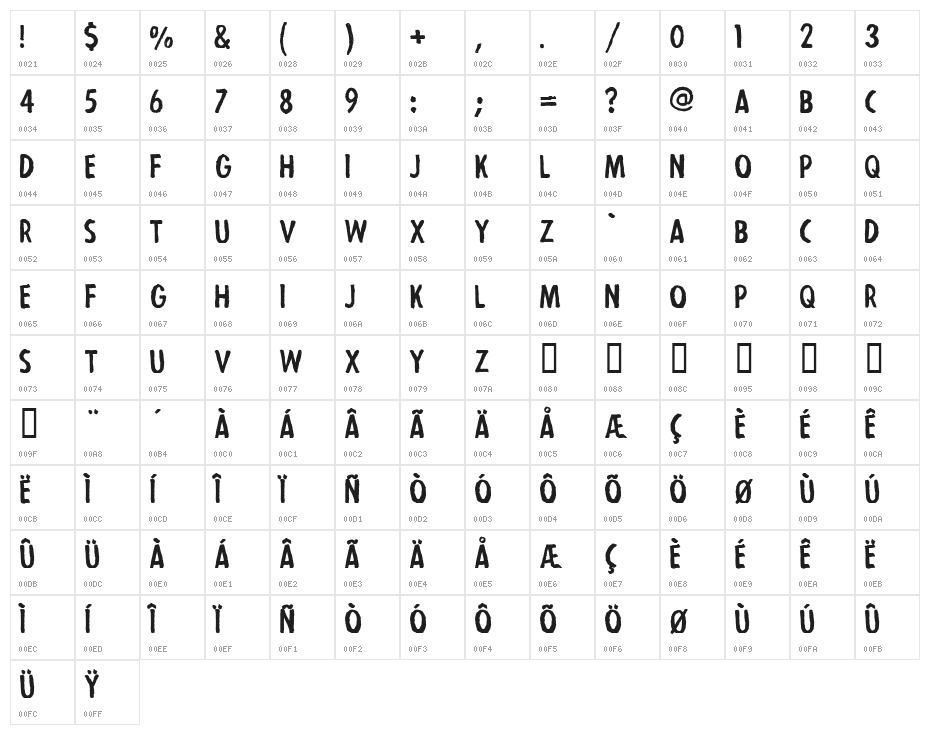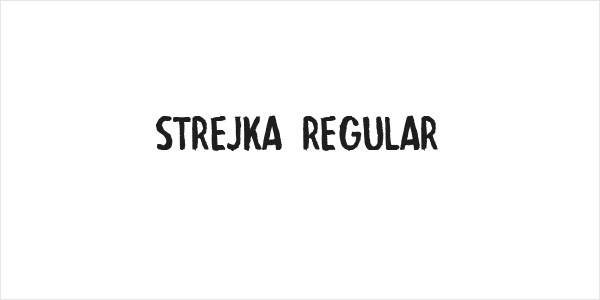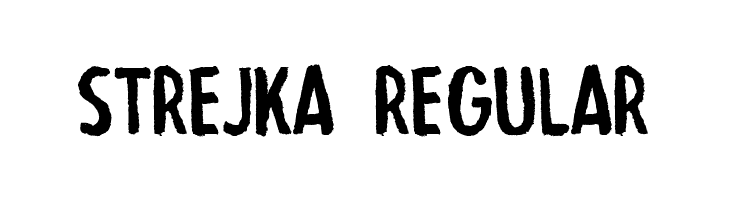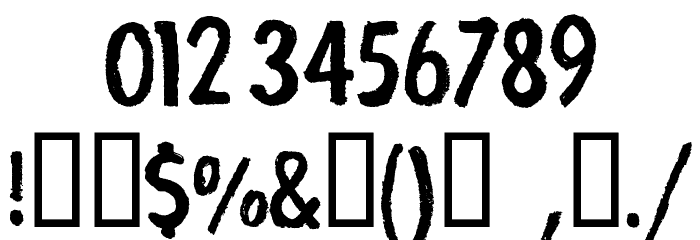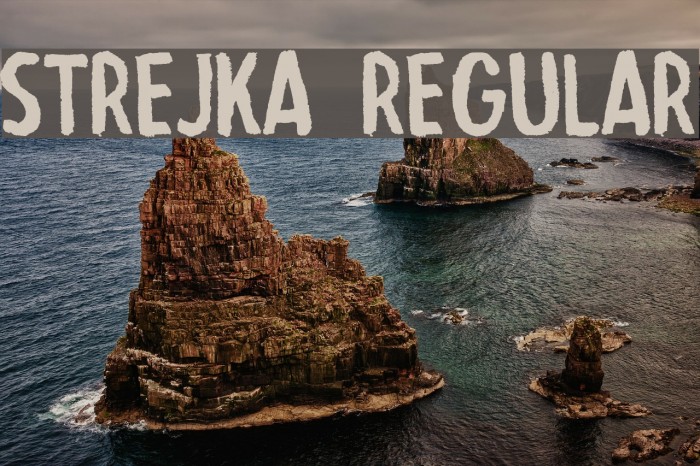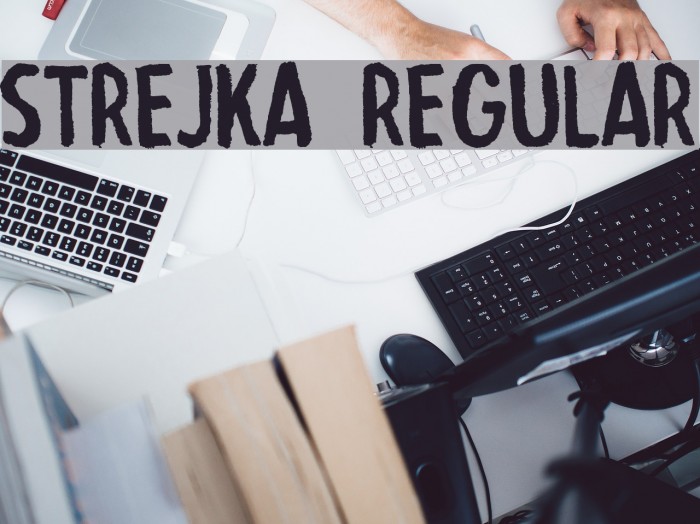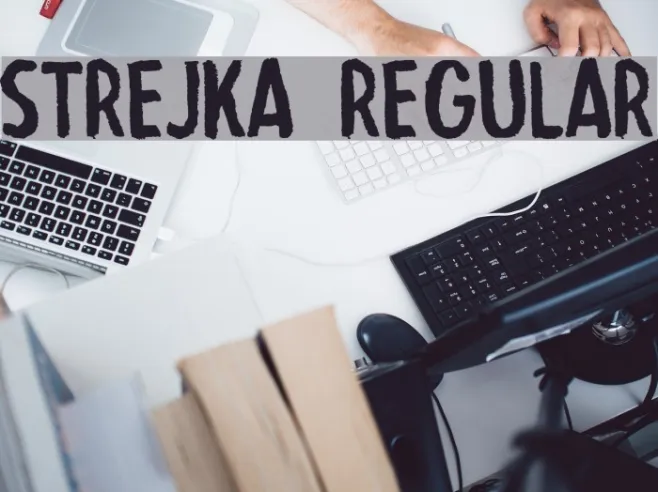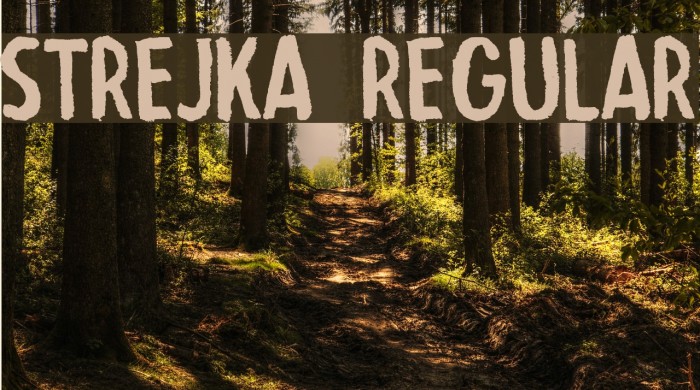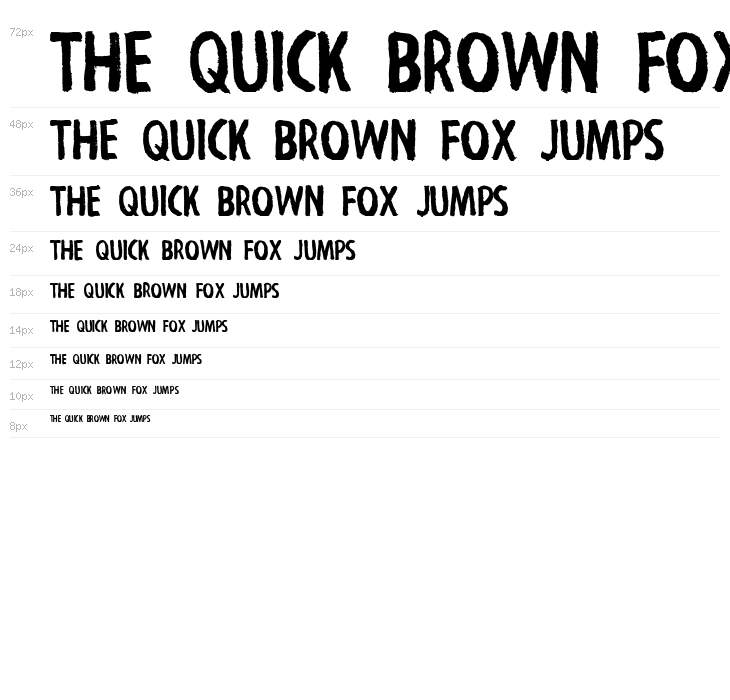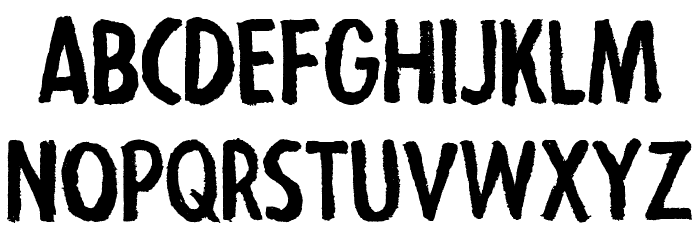
Strejka Regular Font
Strejka Regular Description
This font features a bold and expressive style with a hand-drawn appearance. The characters are slightly irregular, giving it a playful and artistic feel. The strokes are thick and uneven, adding to its unique charm. It maintains a consistent weight throughout, with a slightly condensed width that enhances its boldness. The font has a medium contrast, with noticeable variations in stroke thickness that contribute to its dynamic look. The character spacing is relatively tight, which helps maintain its compact and impactful presence. Overall, this font exudes a modern and decorative style, making it suitable for creative and eye-catching designs.